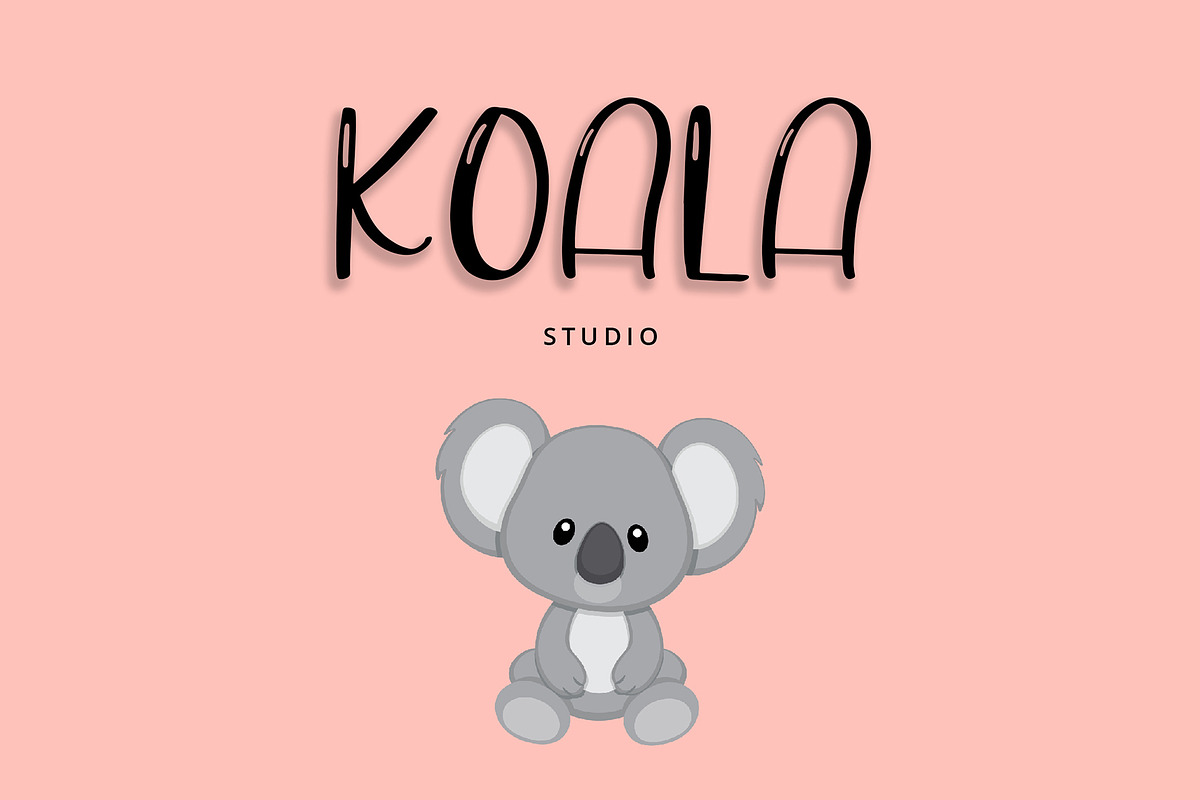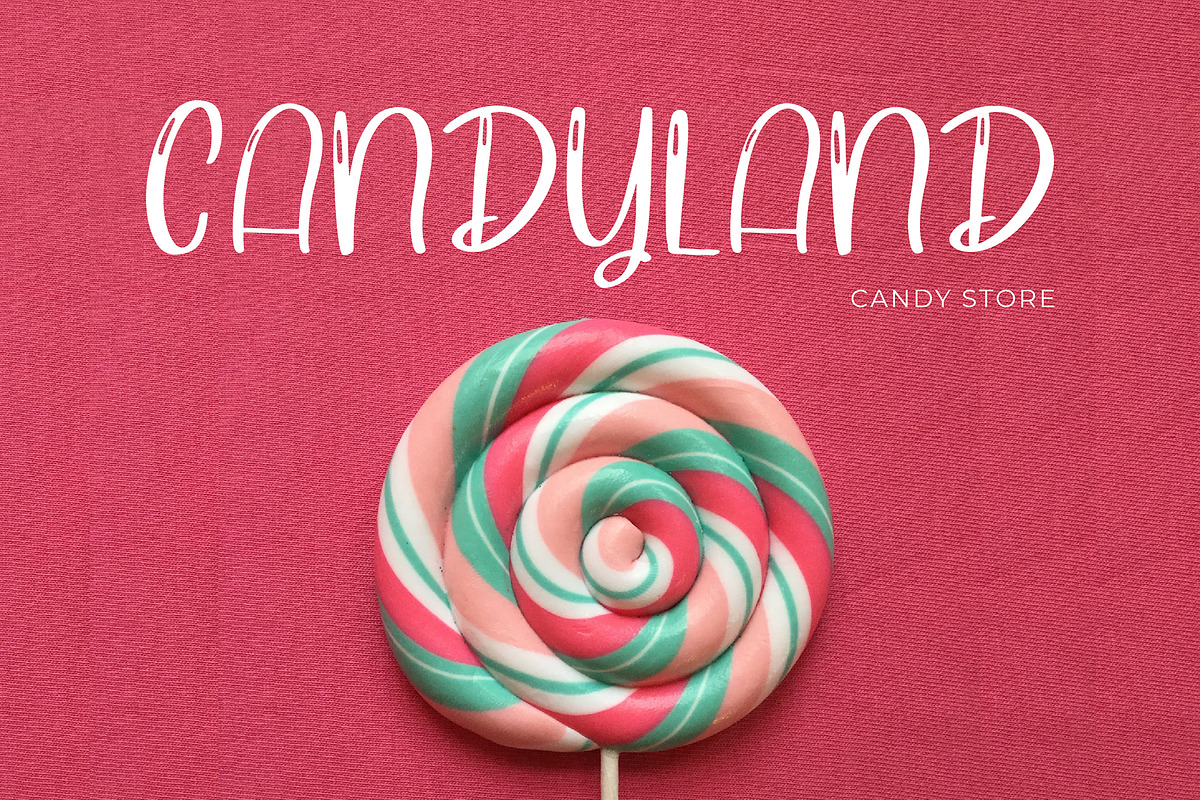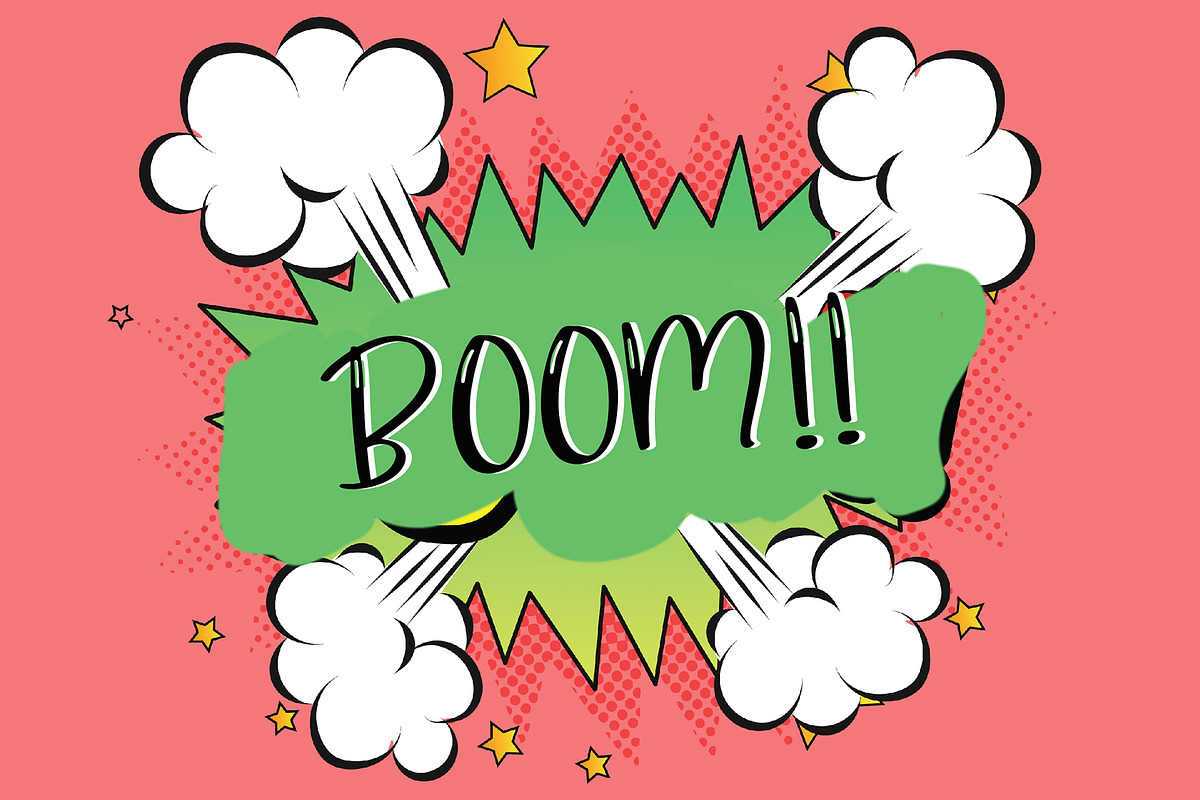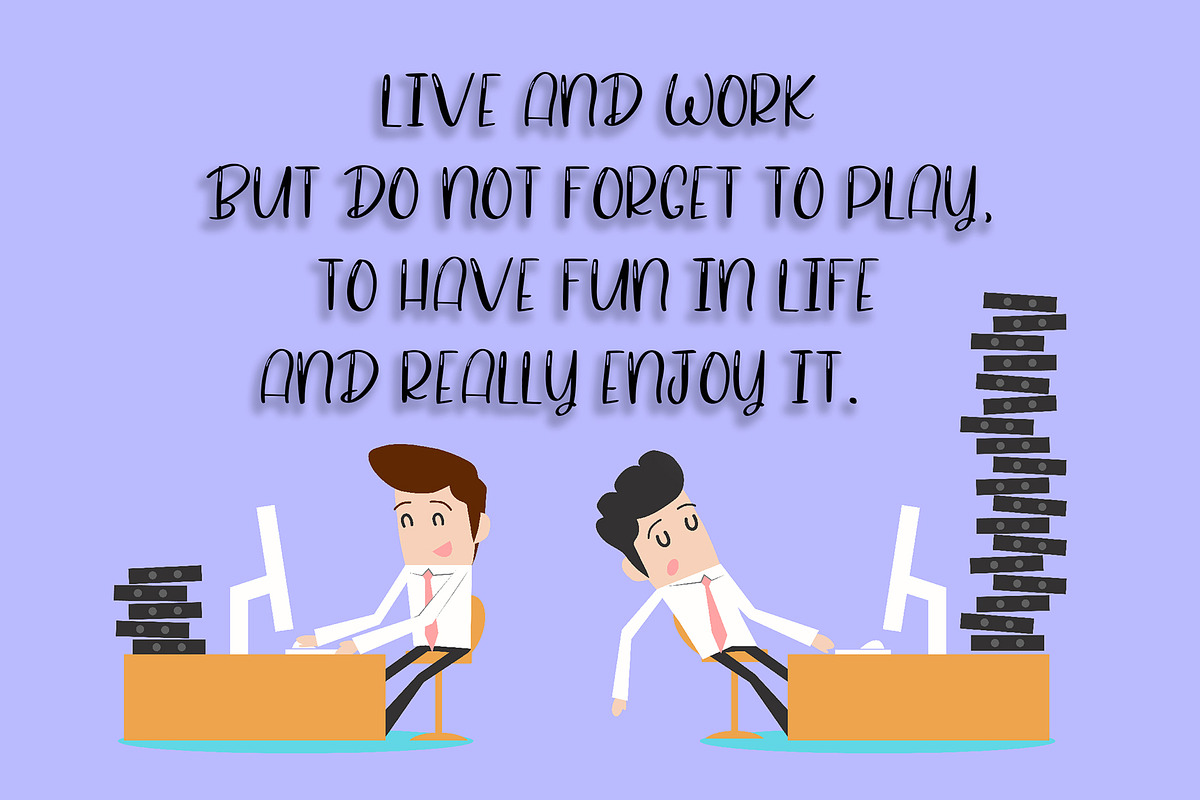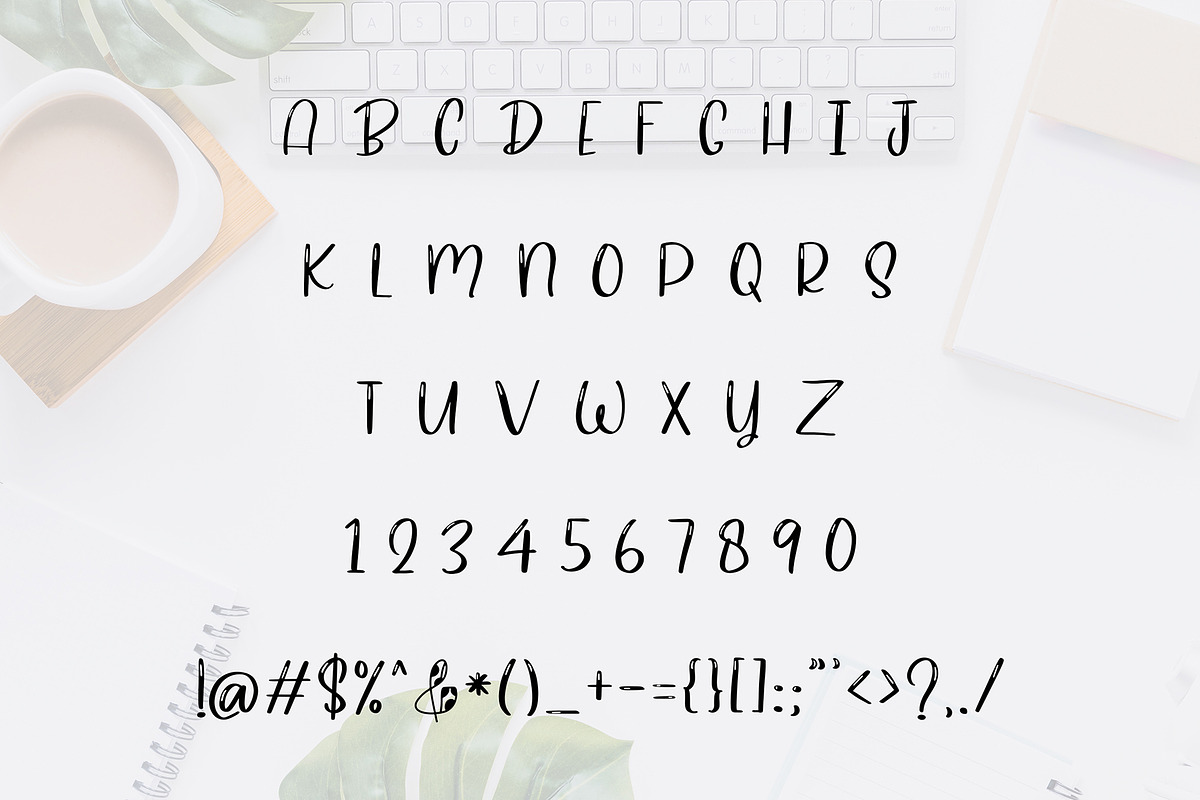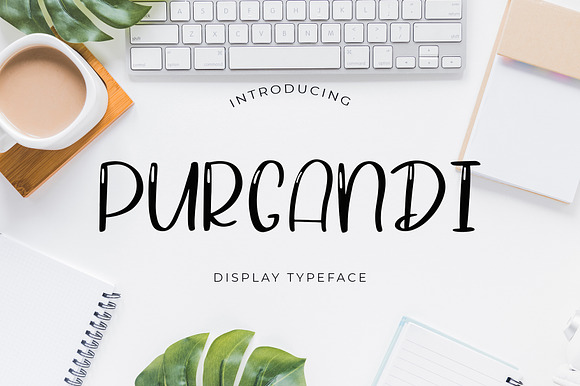
Purgandi Display Font
Purgandi Display Font is Display font that perfect for branding projects, logo, tshirt designs, social media posts, advertisements, product packaging, product designs, label, watermark, invitation, stationery and any projects
Why Purgandi Display Font is worth a look
Purgandi Display Font by Formatika Studio fits naturally into Branding, posters, packaging, typography.